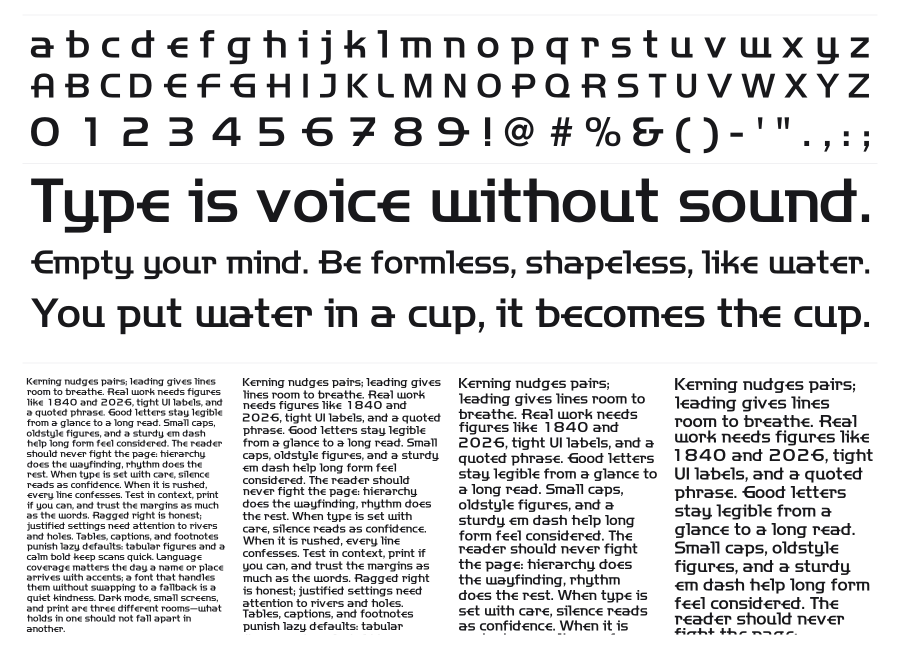
Handelbar
Handelbar is a bold geometric sans from 1998 with a modular, mechanical construction that mixes circular and angular forms. Certain characters feature distinctive notched details that break from convention, giving the font a technical, almost industrial edge. It reads with authority at large sizes and suits identity work in tech, automotive, and sports contexts.